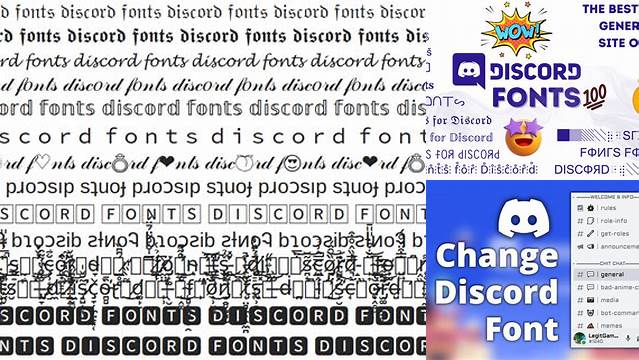
Discord Fonts Copy & Paste: Lingojam Guide
Hey guys! Ever wished you could spice up your Discord profile or messages with some cool, eye-catching fonts? Well, you're in luck! This article is your ultimate guide to mastering Discord fonts copy and paste tricks, specifically using Lingojam as your secret weapon. We'll dive deep into how to use different font styles, where to find them, and how to seamlessly integrate them into your Discord experience. So, let's jump right in and transform your text game!
Unleashing the Power of Discord Fonts: A Quick Guide
First things first, let's talk about why Discord fonts copy and paste are so darn awesome. In a world where everyone is vying for attention, standing out is key. Personalized fonts are a fantastic way to do just that! Imagine your messages popping in the chat or your profile name looking extra slick. It's all about adding that personal touch that makes your online presence unique. Discord itself doesn't offer a built-in feature to change fonts, but that's where the magic of third-party tools like Lingojam comes in. Lingojam is a super user-friendly online font generator that allows you to create text in various styles and then simply copy and paste it into Discord. Think of it as your font playground! There are tons of styles to choose from, like bold, italic, monospace, and even some really funky ones that look like they're from another galaxy. This allows you to add a touch of your personality to your Discord profile. When choosing a font, make sure that the font is visible and readable, there is no point in adding a font that is difficult to read. It might look cool, but it defeats the purpose. When using it in a chat, ensure that the font does not take up too much space or is too flashy. A good balance between readability and aesthetics is essential. Be mindful of accessibility. While cool fonts are fun, they're not always accessible to everyone. Some users may have difficulty reading certain font styles, especially those with visual impairments. Use alternative text or consider limiting the use of highly stylized fonts to ensure your messages are inclusive. Remember, the goal is to enhance your communication, not hinder it. Consider the platform's limitations. While Discord supports a wide range of Unicode characters, not all fonts will render perfectly. Always test your text before sending it to ensure it looks the way you intend. Be prepared for some styles to appear differently on different devices or operating systems. Keep your community in mind. While the fonts are great, remember to use them responsibly. Avoid overuse or spamming with excessive fonts, which can be annoying to others. Strive for moderation to make the experience enjoyable for everyone. Discord fonts are more than just aesthetics; they enhance self-expression and create a unique identity in the digital realm. The beauty of Discord fonts is their ease of use. With just a few clicks, you can create a message that stands out from the crowd, capturing attention and communicating your message. It’s an effective way to be noticed and express your personality.
Why Use Lingojam for Discord Fonts?
Okay, so why Lingojam, specifically? Well, for starters, it's incredibly easy to use. No complicated software downloads or installations are needed. You just hop onto their website, type your text, and instantly see it transformed into a variety of fancy fonts. It's a simple, straightforward process that anyone can do, regardless of their tech skills. Another big plus is the sheer variety of font styles available. Lingojam offers a huge range of options, from classic bold and italic to more elaborate and unique styles. This means you can always find a font that matches your mood or the message you're trying to convey. It's like having a whole font wardrobe at your fingertips! And, let's be honest, the copy and paste feature is super convenient. Once you've found the perfect font, all you have to do is copy it from Lingojam and paste it directly into your Discord chat, profile, or wherever you want. It's a seamless and effortless process. Think of Lingojam as the gateway to a more visually engaging and expressive Discord experience. It’s a simple tool that unlocks a world of creative possibilities, allowing you to effortlessly transform your text into visually appealing content. You do not need to have any prior knowledge about how to make fancy text; all you have to do is write the text, then copy it from Lingojam, and paste it in Discord. This ease of use is a massive advantage, especially for those who are new to the world of custom fonts. Besides these advantages, there are no hidden costs or subscriptions. Lingojam is free, making it accessible to everyone. Lingojam’s commitment to simplicity means anyone can jump in and start creating stylish text for Discord right away. With its broad range of options, ease of use, and free access, Lingojam stands out as a top choice for anyone looking to enhance their Discord presence with unique font styles.
Step-by-Step Guide: How to Use Lingojam with Discord
Tips and Tricks for Mastering Discord Fonts
Let's take your Discord fonts copy and paste game to the next level with some helpful tips and tricks. First off, remember that less is often more. While it's tempting to use fancy fonts everywhere, sometimes a simple, well-chosen font can be more effective than a flashy one. Consider using a fancy font for emphasis or special occasions rather than all the time. Try mixing and matching different font styles. For example, you could use a bold font for your username and a more subtle italic font for your status. Get creative and experiment to find what looks best. Be mindful of readability. Some fonts can be difficult to read, especially in chat environments. Make sure the fonts you use are easy to understand, especially for your friends and fellow server members. Also, to keep it clean, and avoid spamming, limit the number of font changes you make. Consistency can make your message more visually appealing. Consider the context. Where you're using the font matters. A fun, playful font might be great for a casual chat, but a more professional-looking font might be better for a server announcement. Always be mindful of the community guidelines of the Discord servers you’re a part of. Some servers might have rules about using custom fonts to prevent spam or ensure readability. Always respect these rules to maintain a positive experience for everyone. To enhance the impact of your text, combine fonts with other formatting options, such as bold, italics, and underlines. This lets you create messages that are visually interesting and easier to understand. Use fonts to create a unique identity for yourself on Discord, choosing a font that reflects your personality and interests. Over time, this can help you stand out and make your online presence more memorable. Experiment with different font generators and tools to discover a variety of styles. Don’t be afraid to try new things and find the perfect font for every occasion. Keep things fresh and avoid using the same font all the time. Regularly change up your fonts to keep your profile and messages interesting and exciting. Have fun with it. Custom fonts add a layer of creativity and personality to your online interaction. Embrace the opportunity to express yourself and enjoy the process. Remember, the goal is to make your Discord experience more enjoyable and expressive.
Advanced Font Techniques and Customization
Ready to take your Discord fonts copy and paste skills to the next level? Let's dive into some advanced techniques and customization options. There are a few other font generator sites to explore. While Lingojam is great, exploring other options can give you more choices. Explore sites such as Stylish Text, Font Generator, and others. These sites offer different font styles and features. Experiment to find the ones you like. You can combine fonts with other Discord formatting features. Mix and match bold, italic, underline, and strikethrough to create unique text styles. This way, you can add more emphasis and visual interest to your messages. Some Discord bots offer custom formatting options. If you manage a server, look for bots that allow you to add custom fonts. Many bots offer advanced features beyond basic formatting. Create custom fonts. Some generators allow you to customize the appearance of your fonts. You can adjust the spacing, style, and other elements to suit your needs. These can be used to fine-tune the look of your text. If you are technically inclined, you can try using Unicode characters. This can be a way to create a font style, although the results may vary. Be aware that not all Unicode characters are supported. When customizing, it is necessary to test your fonts across different devices and operating systems. Different devices may render fonts in different ways, so make sure that your fonts look good for everyone. Test the text on different devices before you finalize it to ensure that everyone can see it. Ensure you respect Discord's terms of service. Do not use fonts to engage in hate speech, harassment, or other violations. Ensure that your custom fonts are used responsibly to foster a positive and safe community environment. Experiment with different combinations of fonts and formatting options. Mix and match different styles to create unique text effects. Try bolding and italicizing the same text, or adding underlines to highlight important words. There are many advanced techniques to create more visually appealing and engaging messages in Discord.
Troubleshooting Common Discord Font Issues
Even with the best tools, you might run into a few hiccups when it comes to Discord fonts copy and paste. Let’s troubleshoot some common issues. One of the most frequent problems is that the font doesn't appear correctly. Sometimes, the font might not display as you intended. This often happens because Discord doesn’t support all font styles. If this occurs, try a different font or a different font generator. Some fonts render differently depending on the device or operating system. Always test your text on multiple devices and platforms to ensure it looks the way you want. If the text appears as a series of question marks or boxes, it means that the font isn't supported by Discord. Unfortunately, there's no fix, so you'll need to choose a different font. Also, some font styles can be difficult to read, especially for users with visual impairments. Make sure that the fonts you use are clear and easy to read. If a user cannot read your message, it defeats the purpose. Another issue is that sometimes the pasted text might not copy correctly. Ensure you have copied the correct text from the font generator. Double-check that you've copied the entire text, not just a portion of it. Also, if you're having trouble pasting the text into Discord, try restarting your browser or Discord application. Ensure your Discord client is up to date. Older versions may have issues with font rendering. If you're experiencing issues in a specific server, there might be server-side limitations. Check the server's rules or contact the server admins to see if they have any restrictions on font usage. Also, if you're still having issues, try clearing your Discord cache. This can sometimes resolve display problems. To clear the cache, go to Discord settings and look for a